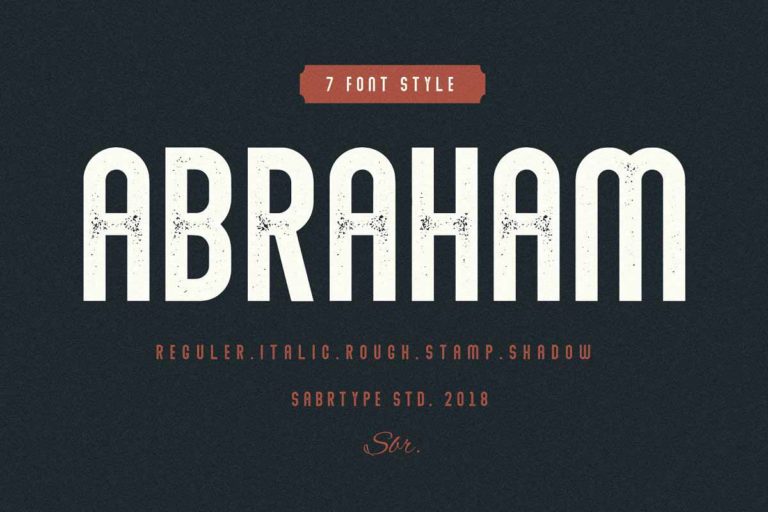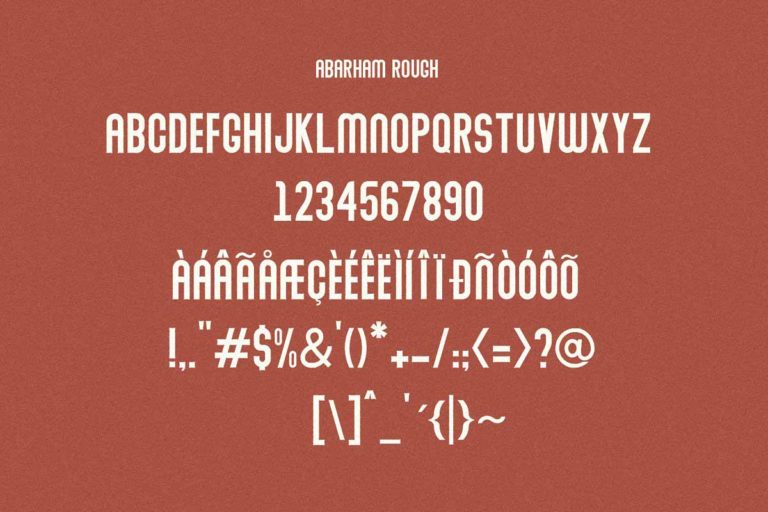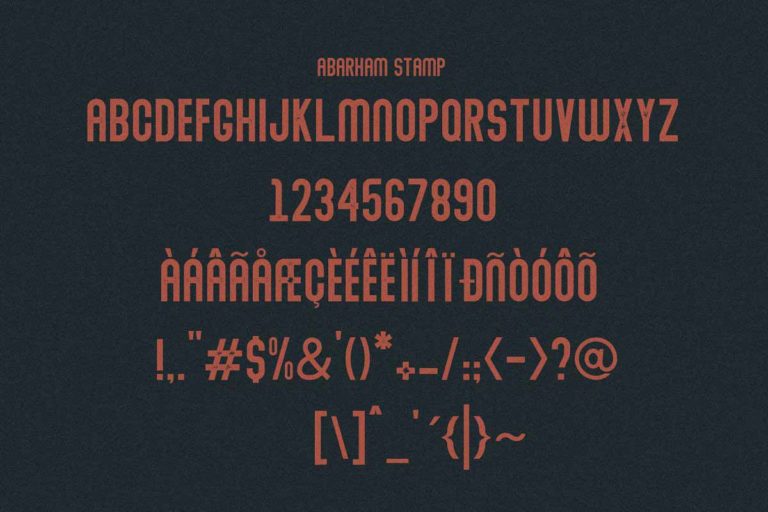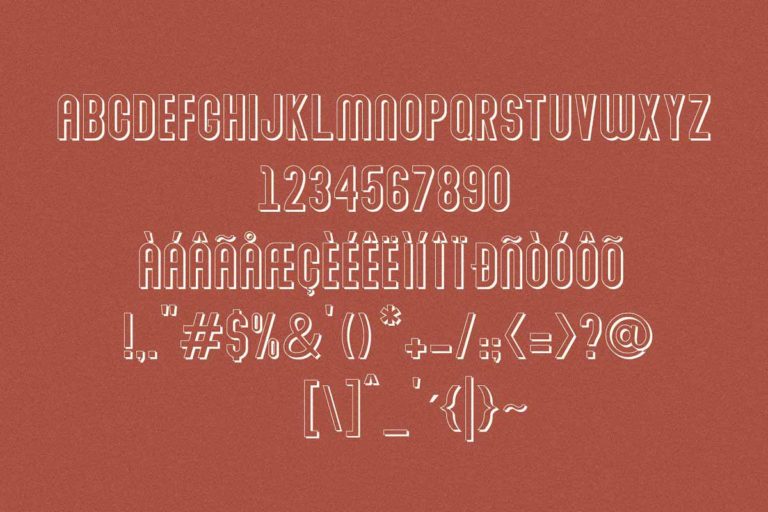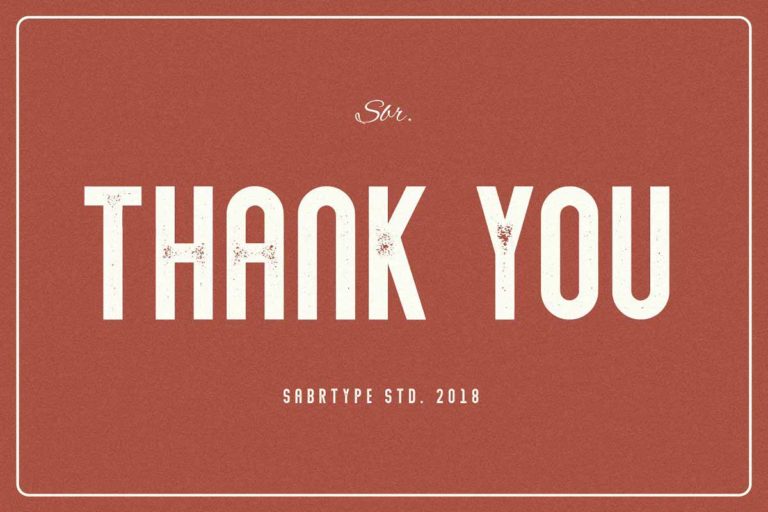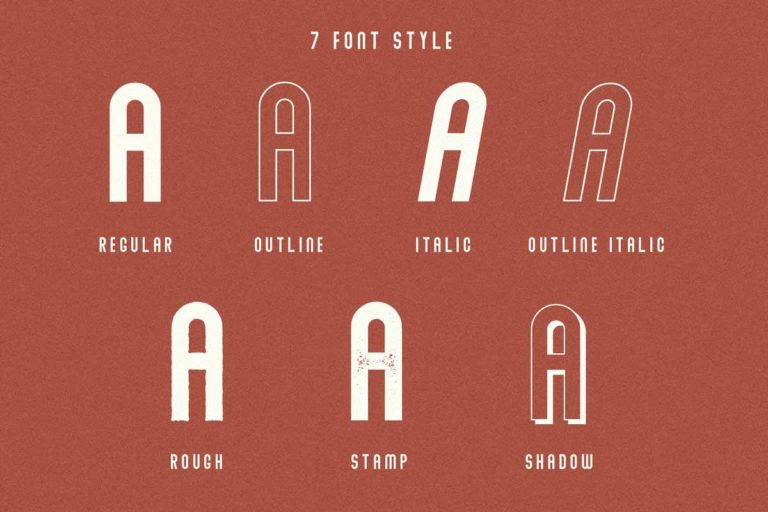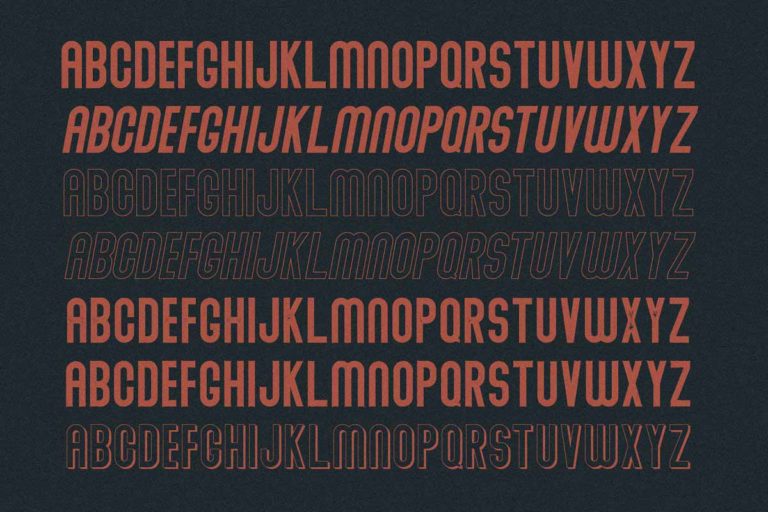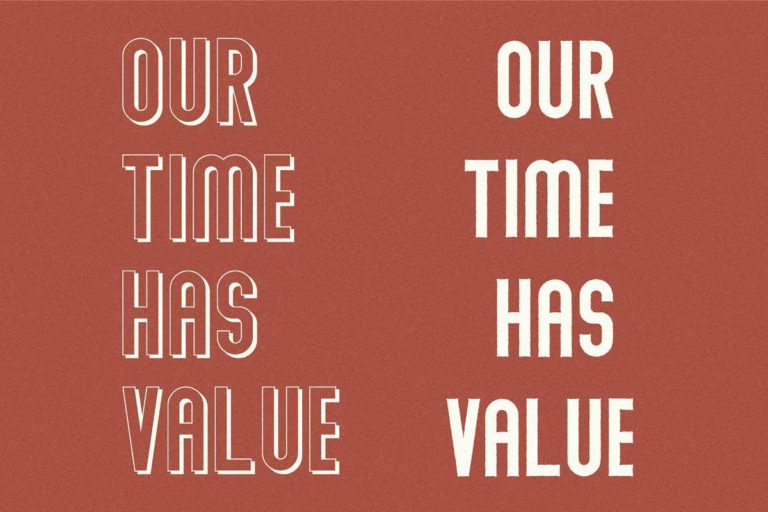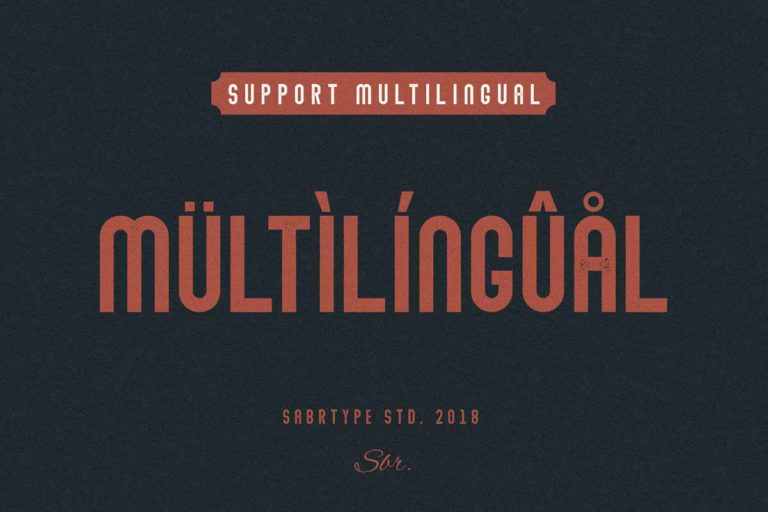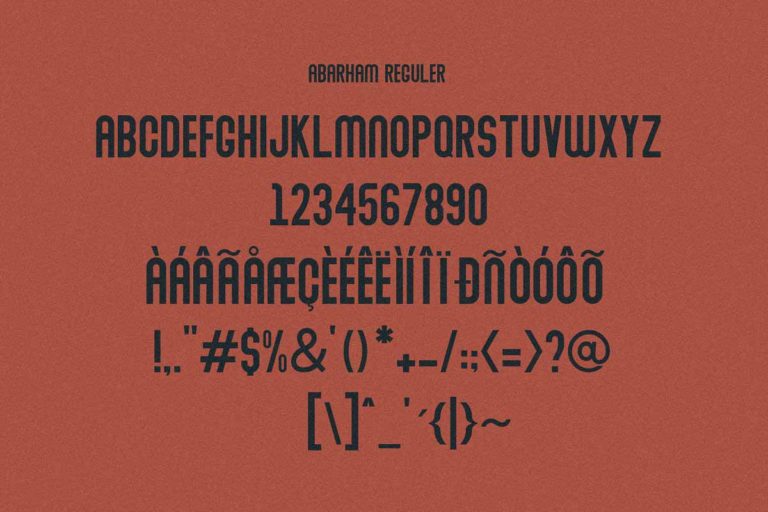
Abraham Font Family
Professional typography is the silent ambassador of every successful business — and Abraham Font Family is the typographic ambassador your brand can trust in any boardroom, any market, any medium. A clean, authoritative modern sans serif font family with exceptional range and versatility, Abraham brings the typographic confidence that professional brands demand.
The Abraham font family was built on a foundation of geometric construction with carefully applied humanist corrections — a design approach that creates type which is both visually systematic and genuinely comfortable to read over extended passages. The consistent stroke width across all letterforms creates a clean, modern impression, while the slightly softened terminals and open letter spacing prevent the font from feeling cold or mechanical. Multiple weights from Light to Bold ensure Abraham can handle any typographic hierarchy requirement within a single, cohesive design system.
Corporate branding designers working with professional service firms, financial institutions, and enterprise technology companies find Abraham delivers the exact visual tone their clients need: confident without being aggressive, modern without being trendy, authoritative without being unapproachable. Fintech UI designers use Abraham across dashboard interfaces, onboarding flows, and marketing materials for its exceptional screen legibility and professional character. Business communications — presentations, reports, white papers, and corporate publications — take on a polished, credible quality when set in Abraham.
The font family structure makes Abraham an efficient choice for large-scale brand systems: use the lighter weights for body text and data labels, medium weights for supporting information and captions, and bold weights for headlines, CTAs, and key data points. The visual consistency across the weight range ensures the brand system remains coherent at every application level.